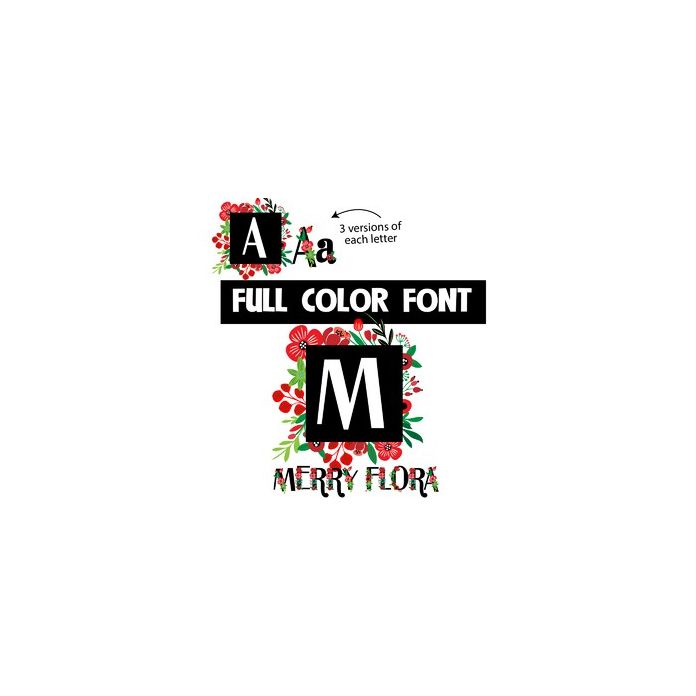
This full-color font features beautiful holiday flowers throughout. Use the lowercase for a floraled lowercase without boxes and access a true upper "alt" case through your system's character map or Silhouette's glyph map.